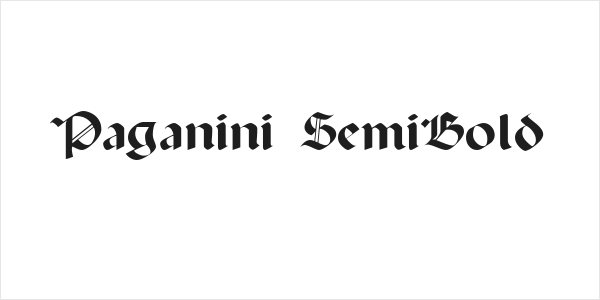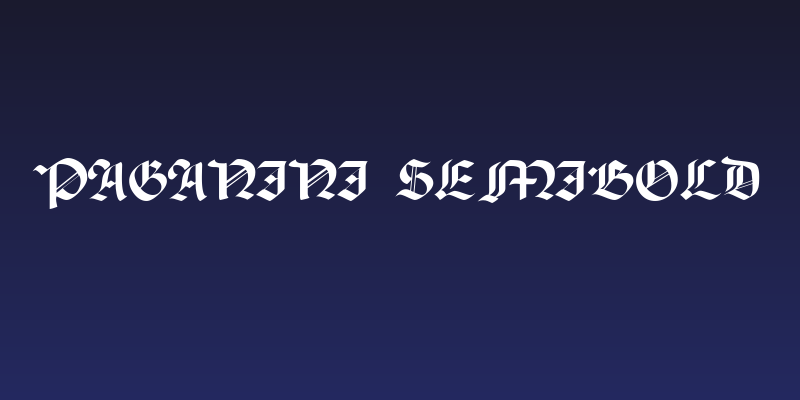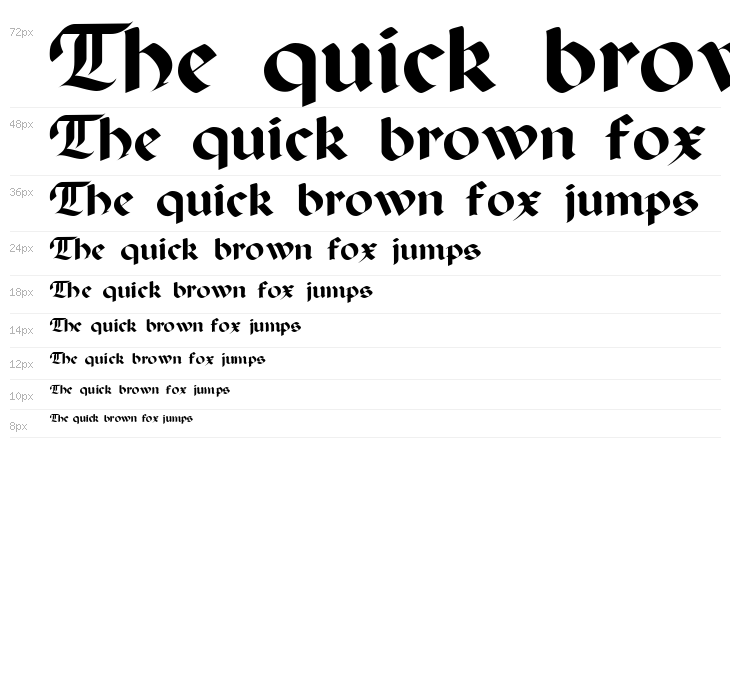
Paganini SemiBold Font
Paganini SemiBold Description
This font exhibits a bold and dramatic style, reminiscent of traditional blackletter typefaces. The characters are sharply defined with angular strokes and intricate details, giving it a gothic and medieval appearance. The uppercase letters are particularly ornate, with flourishes and pointed serifs that enhance its decorative quality. The lowercase letters maintain a consistent style, offering a balance between readability and artistic flair. Numbers and special characters are designed to match the overall aesthetic, ensuring a cohesive look across all text elements. This font is ideal for projects that require a historical or classical touch, such as invitations, certificates, or branding that seeks to convey elegance and tradition.
| Use Case | Headlines, Logos, Decorative text |
| Proposed Projects | Ideal for historical-themed designs, elegant invitations, certificates, and branding that requires a classical touch. |